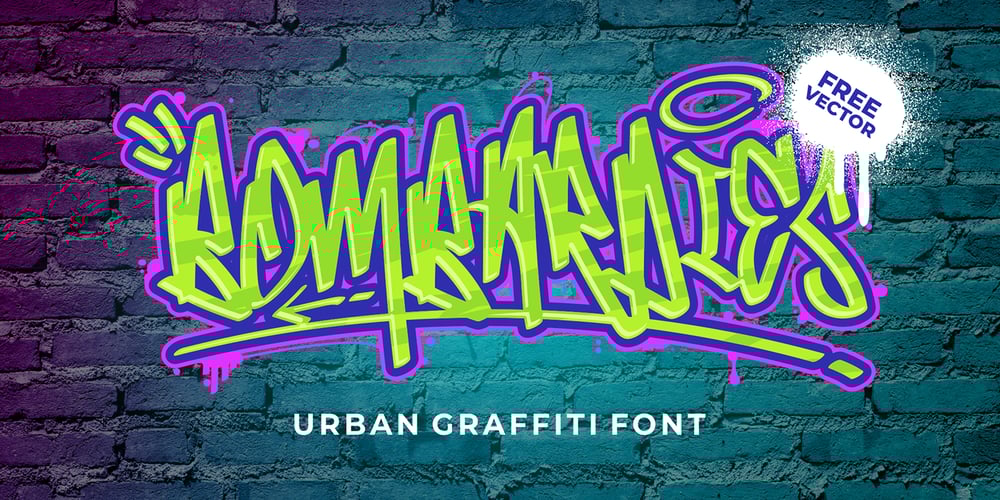
Bombardies
Bombardies font
Bombardies Font Family was designed by Icep Anwar Fadhil and published by Figuree Studio. Bombardies contains 1 styles and family package options. Hello, this is Bormbardies modern Graffiti Font!This font was designed so that users can use it more easily and make graffiti designs easier. Bombardies is very suitable for use in various media such as; packaging, logos, labels, posters, shirt designs, bulletins, typography, and many other media, especially with graffiti look.